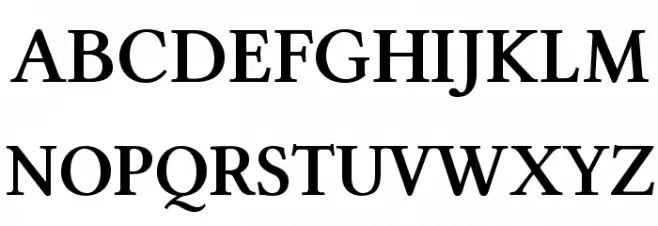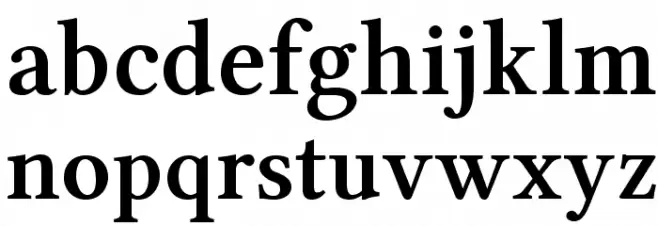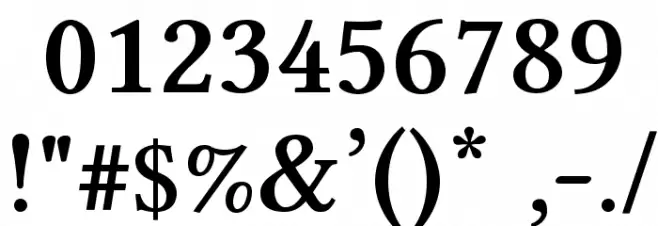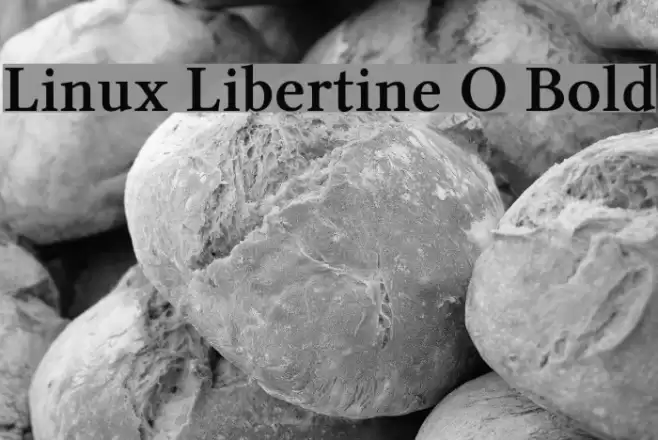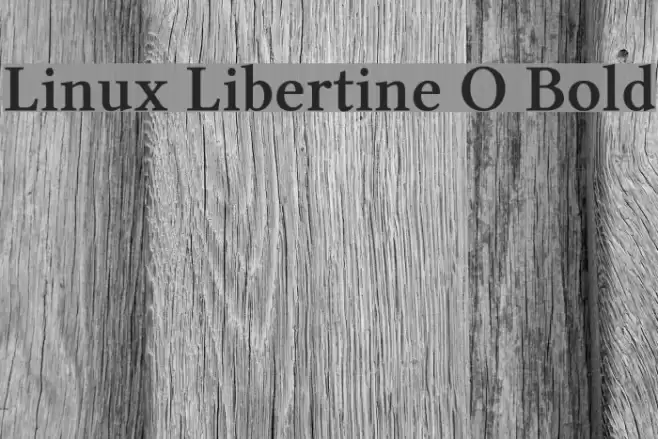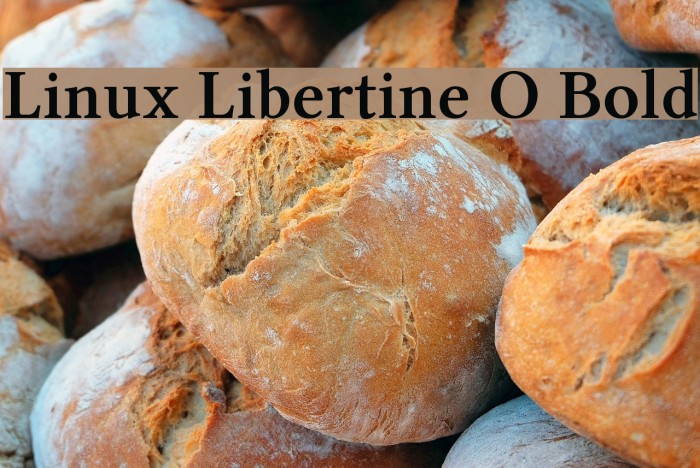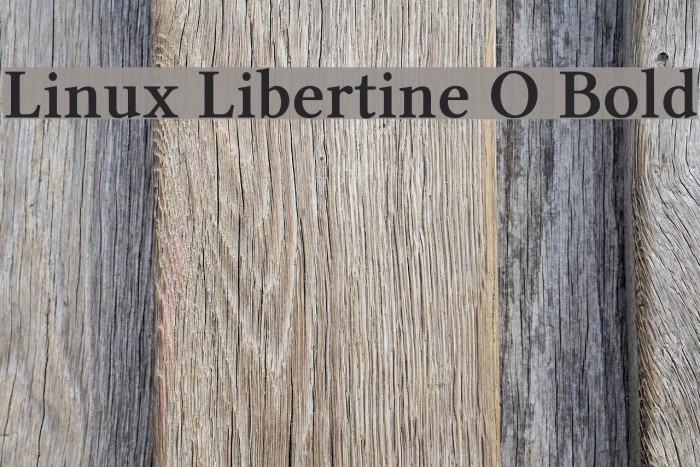
Linux Libertine O Bold
This font exhibits a classic serif style with a bold weight, characterized by its strong and elegant presence. The uppercase letters are well-proportioned, with distinct serifs that add a touch of sophistication. The lowercase letters maintain a consistent style, offering readability and a traditional feel. Numbers are clear and balanced, making them suitable for both text and display purposes. The special characters are crafted with precision, ensuring they complement the overall aesthetic. This font is versatile, suitable for a range of applications from formal documents to creative projects.
A bold, classic serif font with strong, elegant serifs and excellent readability.
- Proposed Projects: Ideal for book typesetting, formal invitations, branding, and editorial design.
- Category: Serif
- Overall Style: Classic